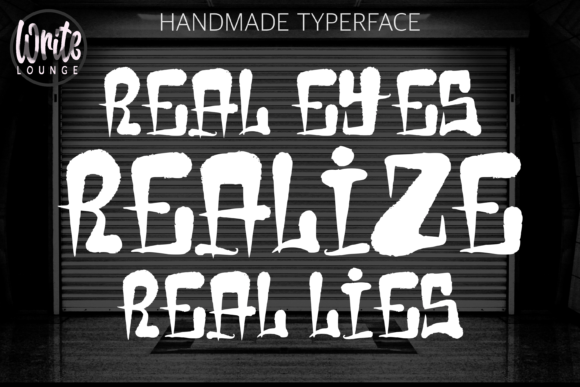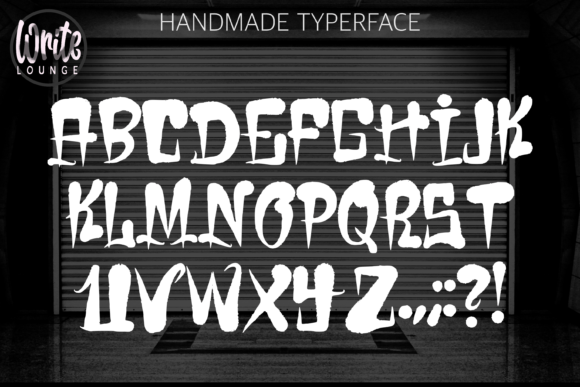
The Urban Edge: Unleashing Creativity with Astro Spray Cap Font
I’ll never forget the struggle I faced while working on a streetwear client’s branding project. The brief was simple: create a bold, eye-catching logo that screamed urban style. But, as I scrolled through my font library, I realized I was stuck in a design rut. That’s when I stumbled upon Astro Spray Cap, a custom graffiti display font that instantly elevated my design game.
With Astro Spray Cap, I was able to add a touch of edginess to my design, making it perfect for urban, streetwear projects. In this article, I’ll share my experience with this font, its features, and how to make the most of it in various design platforms.
Honest Review: The Good and the Quirky
- ✨ Unique Graffiti Style: Astro Spray Cap’s custom graffiti display font looks like it’s been sprayed straight from a can, giving your designs an authentic urban feel.
- ✅ Versatility: This font is perfect for a wide range of projects, from logos and posters to t-shirt designs and more.
- 💥 Attention-Grabbing: The bold, edgy design of Astro Spray Cap is sure to turn heads and make your designs stand out.
- 🤔 Limited Legibility: Due to its graffiti nature, Astro Spray Cap may not be the best choice for body text or long paragraphs.
- ⚠️ Glyph Overload: With so many glyphs and stylistic alternates, it may take some time to get familiar with the font’s capabilities.
Designer Inspiration: The Story Behind Astro Spray Cap
According to its creators, Astro Spray Cap was inspired by the vibrant street art scene in urban cities. The designers wanted to capture the raw energy and edginess of graffiti art and put it into a font that could be used by designers and artists alike. The result is a unique, one-of-a-kind font that’s perfect for adding a touch of urban style to any design.
Q: What type of projects is Astro Spray Cap best suited for?
A: Astro Spray Cap is perfect for urban, streetwear projects, such as logos, posters, t-shirt designs, and more.
Q: Is Astro Spray Cap difficult to use?
A: While Astro Spray Cap has a lot of glyphs and stylistic alternates, it’s relatively easy to use, especially if you’re familiar with OpenType features.